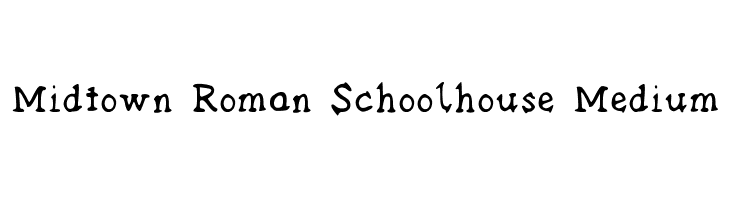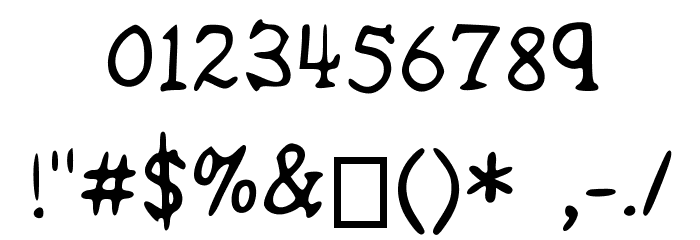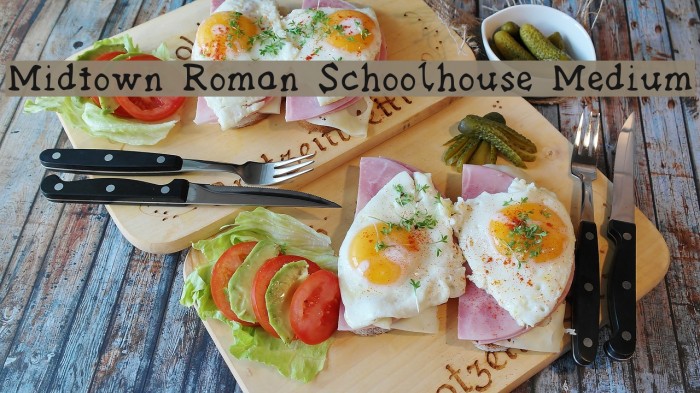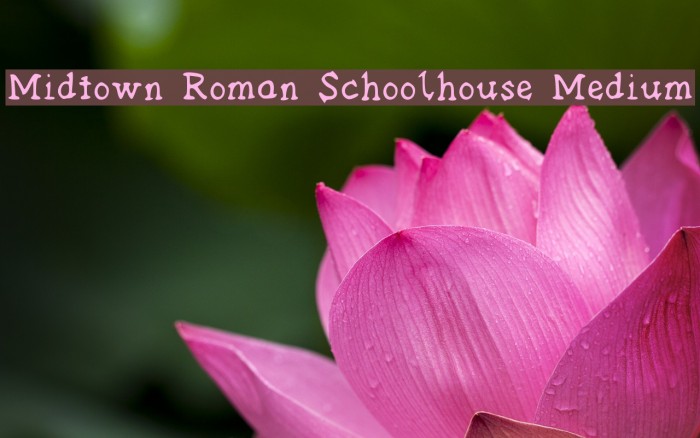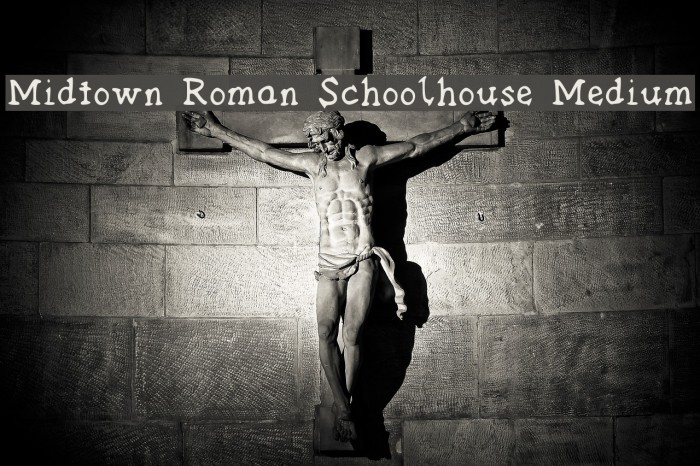
Midtown Roman Schoolhouse Medium Font
Midtown Roman Schoolhouse Medium Description
This font features a playful and slightly whimsical design, reminiscent of handwritten or chalkboard lettering. The characters have a unique, uneven stroke that adds a casual and friendly feel. The uppercase letters are bold and prominent, while the lowercase letters maintain a consistent style with slight variations in height and width, enhancing the font's informal charm. Numbers and special characters follow the same playful aesthetic, making them suitable for creative and engaging designs. The overall appearance is approachable and versatile, ideal for projects that require a touch of personality and warmth.
A playful, handwritten-style font with a whimsical and friendly appearance from Uncategorized fonts.
- Proposed Projects: Ideal for children's books, educational materials, playful branding, and creative posters.
- Overall Style: Casual, Playful